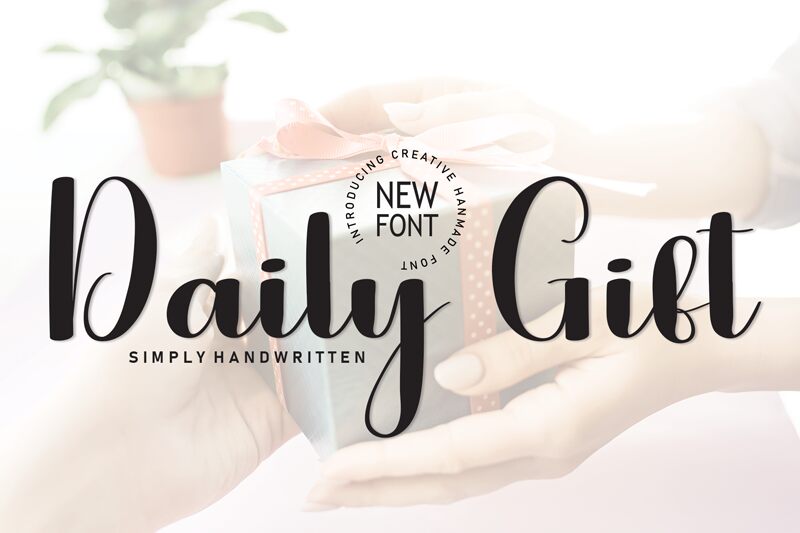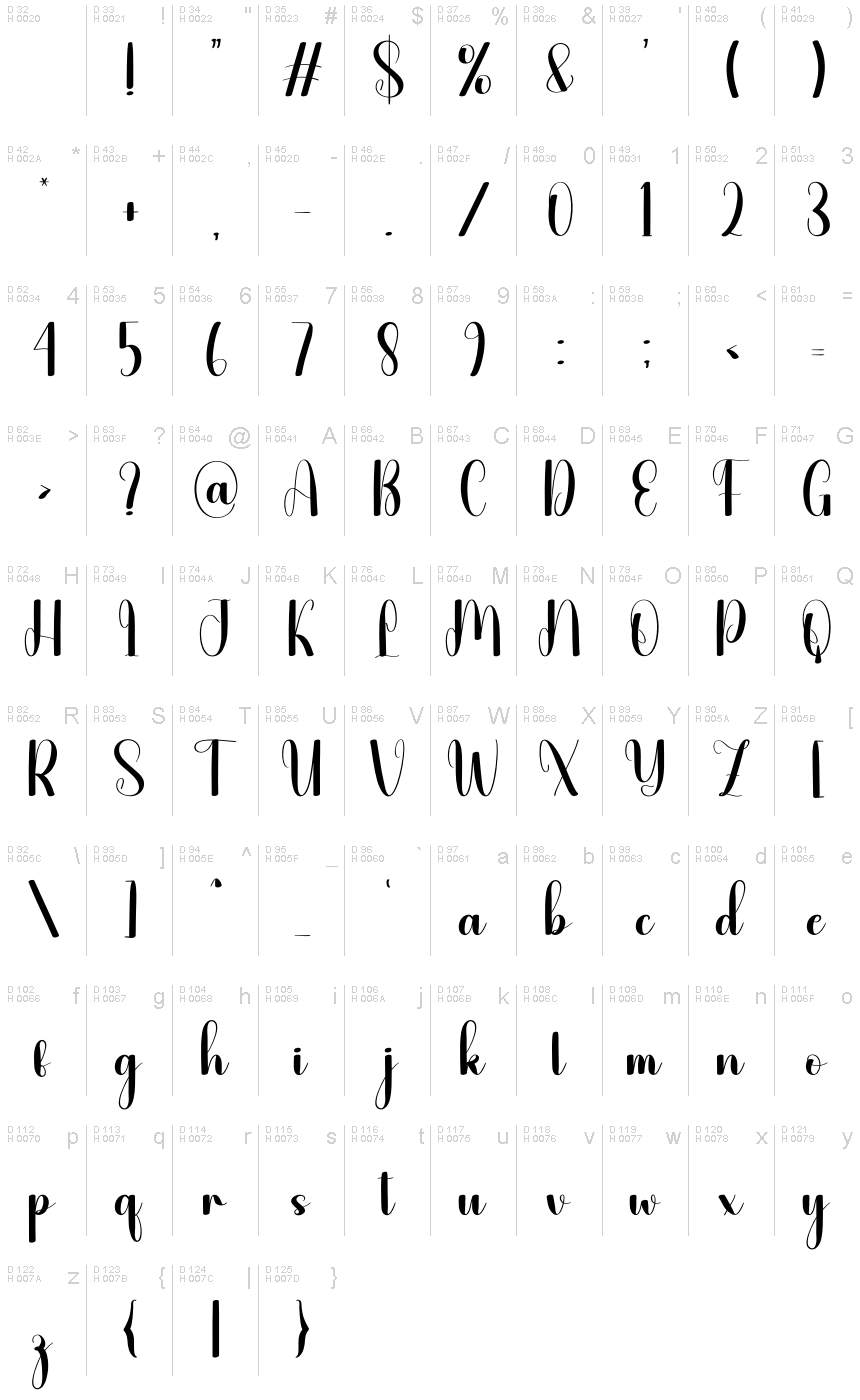
Daily Gift
Daily Gift font by Scratchones is a captivating handwritten typeface that embodies elegance and charm. With its flowing curves and playful loops, this free font exudes a personal touch, making it perfect for designs that require a warm, inviting aesthetic. Whether used for creating eye-catching invitations, stylish branding materials, or whimsical social media posts, Daily Gift's unique style brings a sense of authenticity to any project.
Its expressive strokes and distinctive handwritten flair make it an ideal choice for designers seeking to add character and personality to their work. Download the Daily Gift font today to elevate your creative projects with its delightful allure—perfect for enhancing your design repertoire.